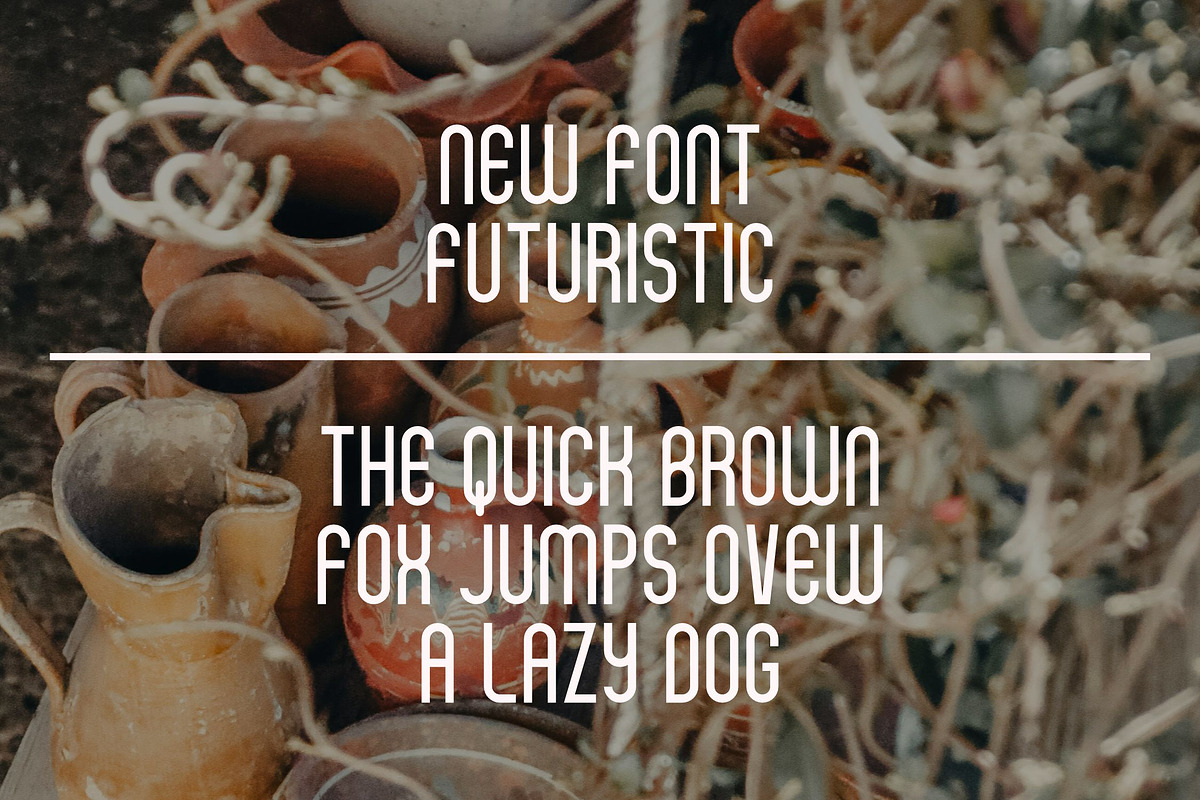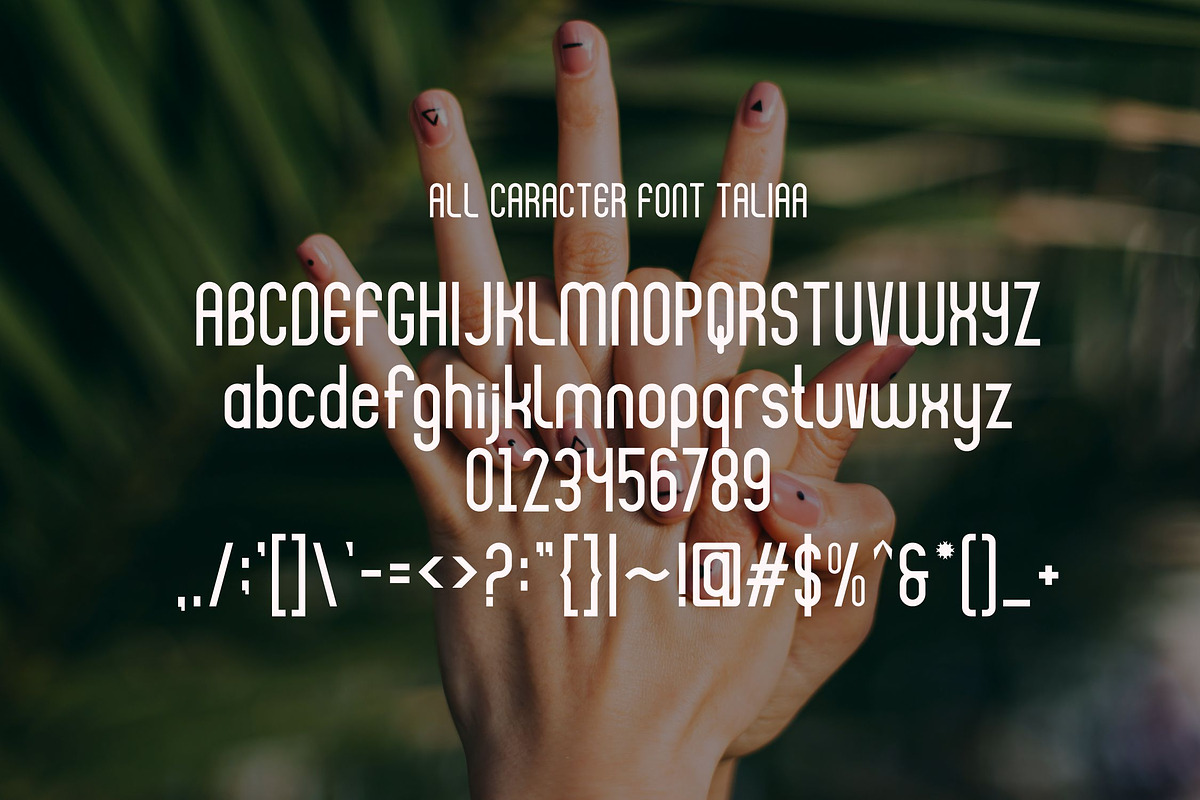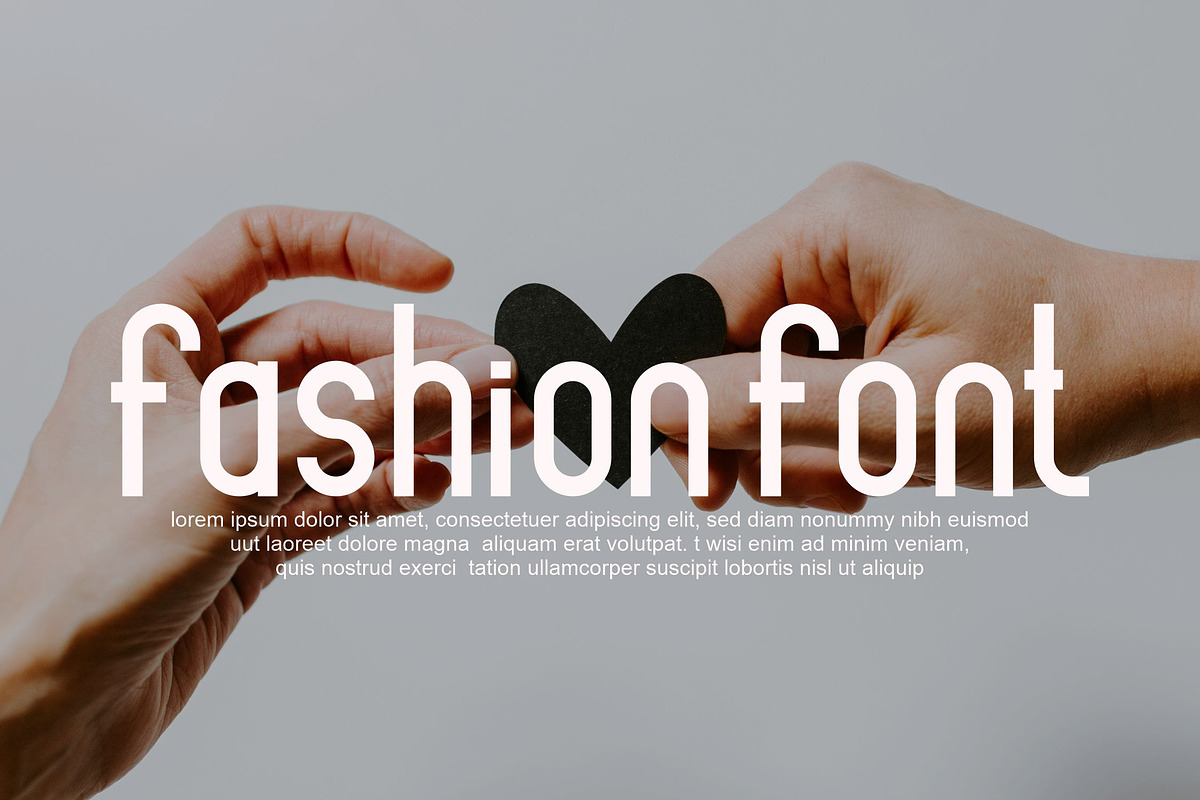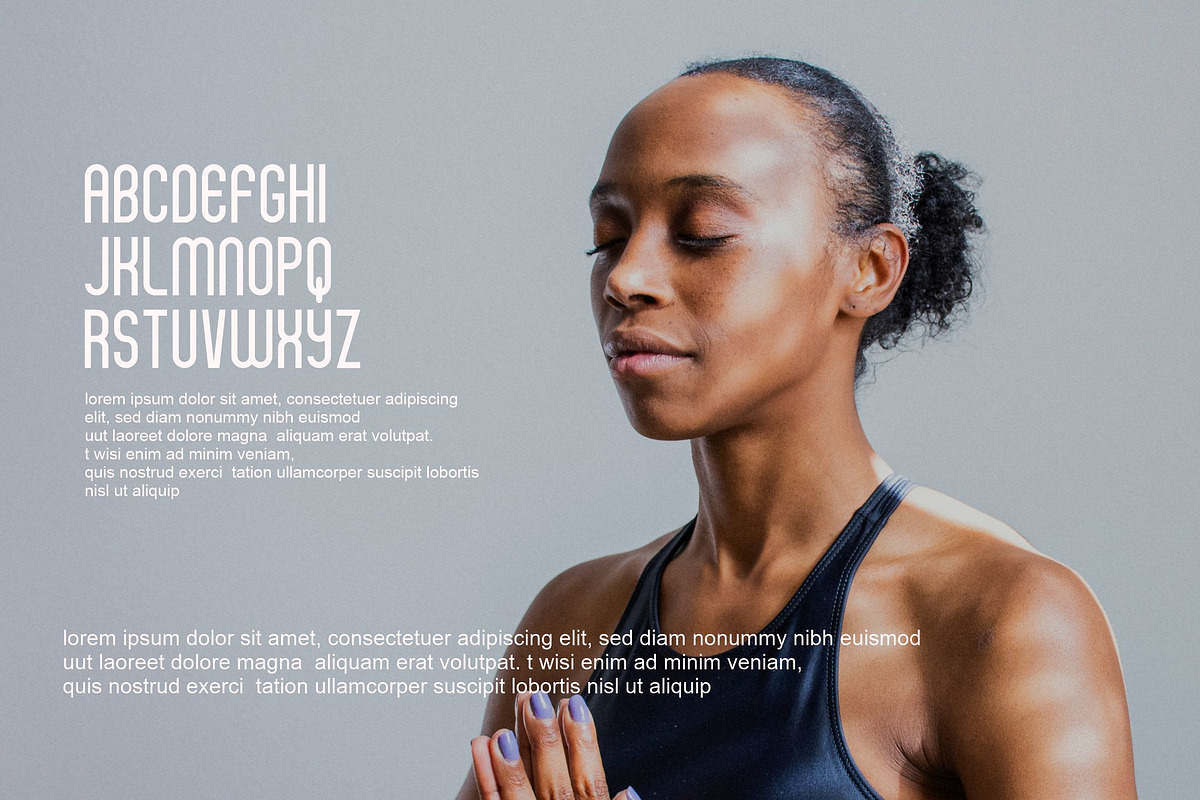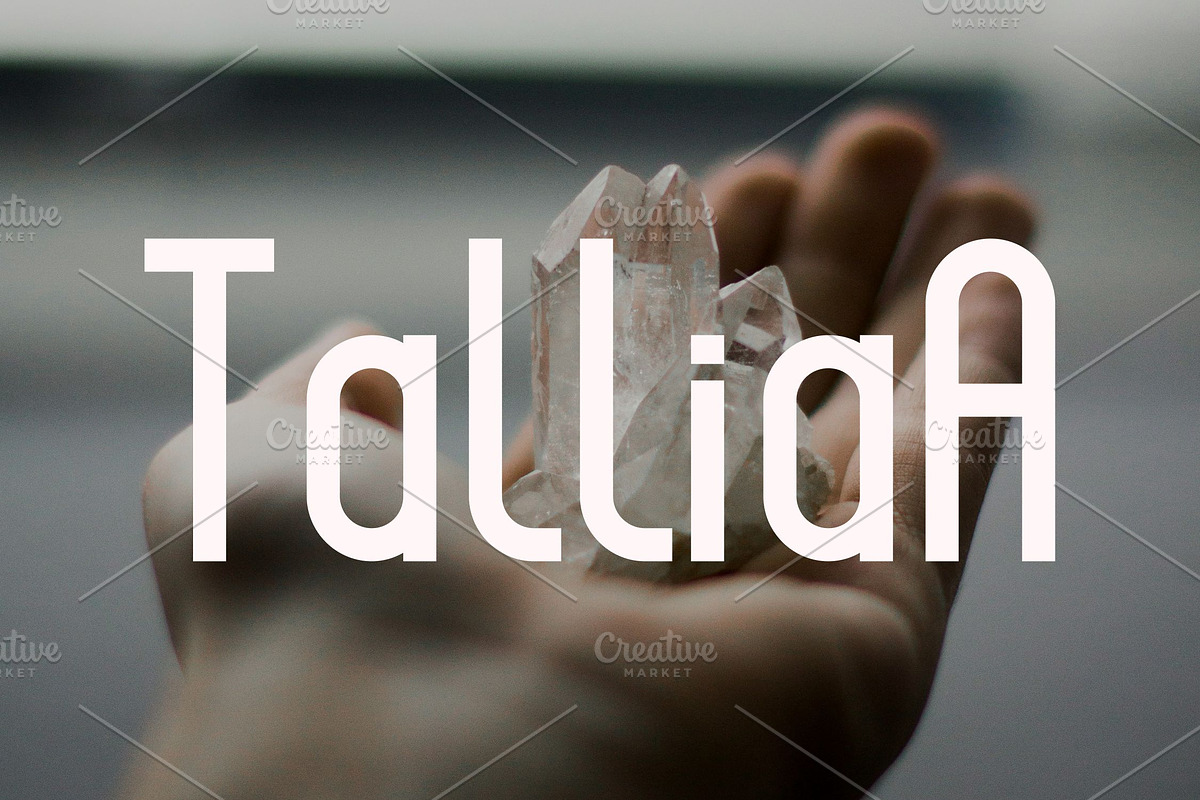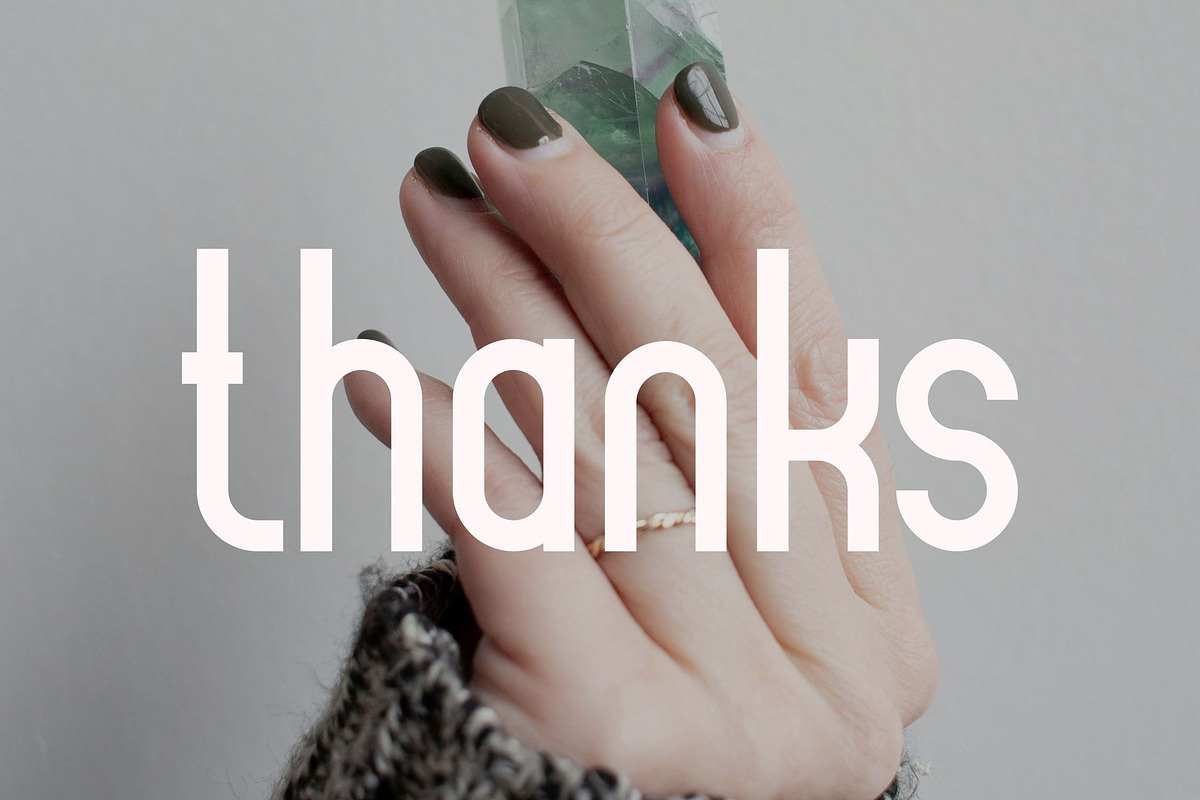
Talliaa
I want to introduce this cool font, namely (Talliaa) which is a sans serif with a charming touch of style, this font also looks interesting because I added several alternative features that you can use, don't forget to add an extrude style in it to make it look more attractive for the design. For you, this font is suitable for those of you who want a design that displays an interesting side but is still relevant for a charming modern look. there's nothing wrong if you feel all the experience of using this font in your designs, make this font as one of the font collections on your computer